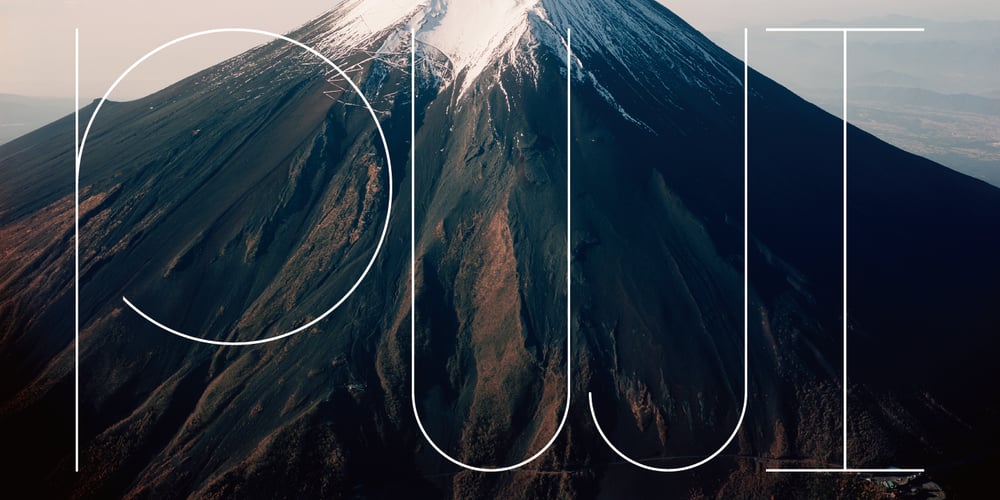
PUJI
PUJI font
PUJI Font Family was designed by Shojiro Okuno and published by pororoca. PUJI contains 10 styles and family package options. PUJI is an experimental sans serif perfectly suited for graphic design and any display use. It could work for web, print, motion graphics etc. PUJI has the other version “PUJI narrow” which has different letter’s width in “A”,”V”,”W”.